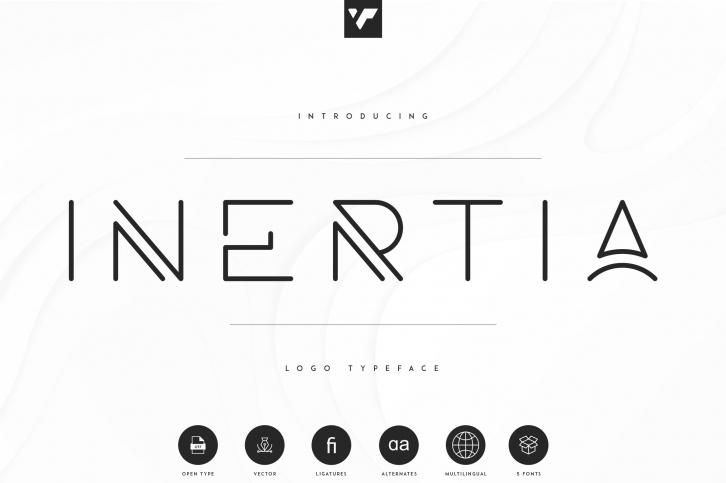
Inertia is a trendy and unique font with an authentic style. It was designed by VPcreativeshop and it's a great choice for creative people who need such a font. It was released on September 11, 2020 and the file size is 11.72 MB. Inertia will add an organic vibe to any design idea!